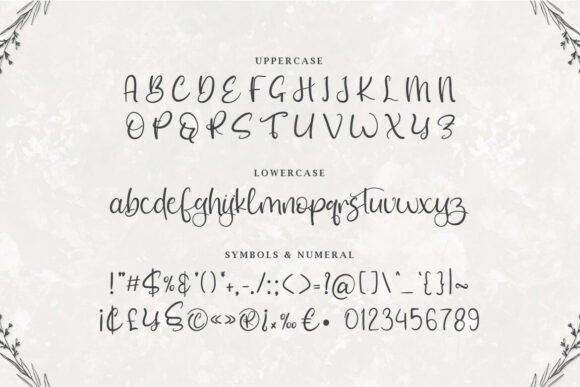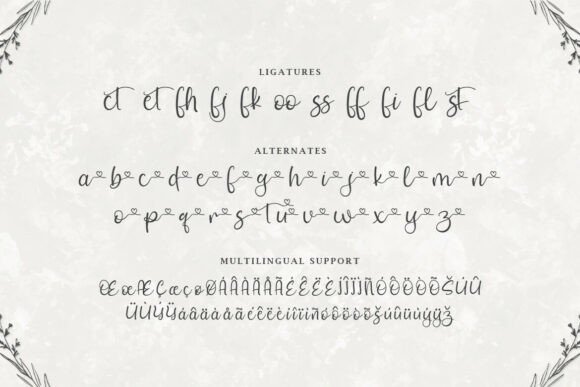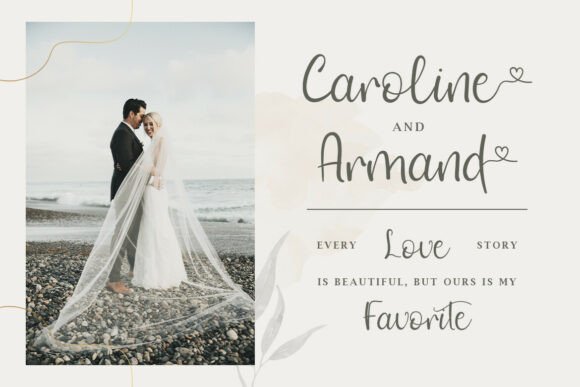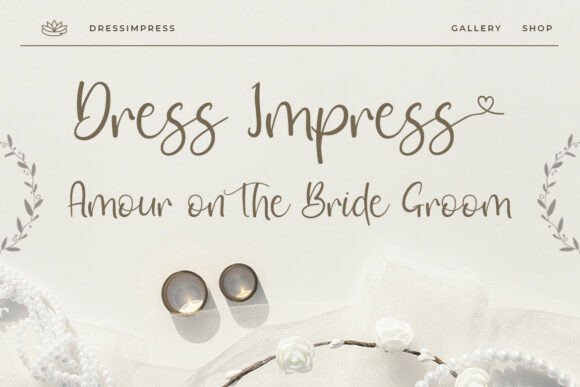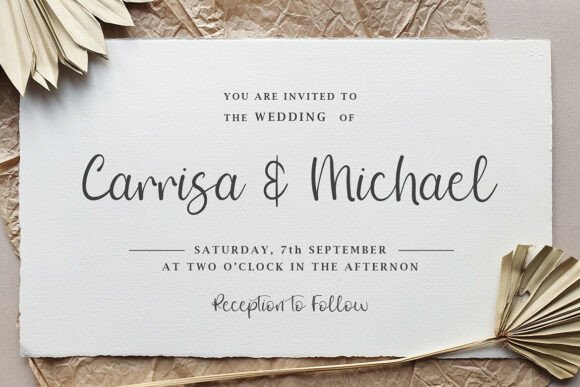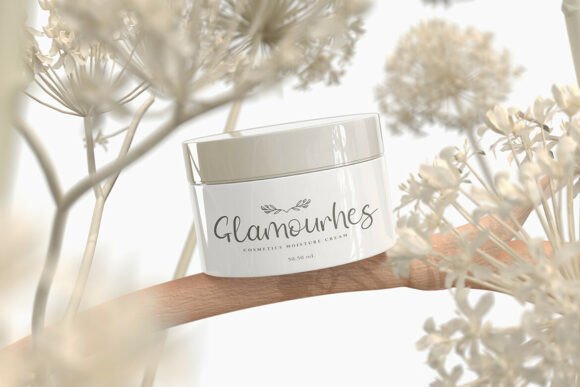
Introduction to Romantisna Font
Romantisna is a handwritten script font featuring smooth flowing strokes and natural letter connections.
The rounded shapes and subtle decorative swashes create a soft and personal character suitable for expressive typography This typeface is designed for display use and works well for wedding invitations, save-the-date cards, greeting cards, branding materials, beauty packaging, social media graphics, and quote layouts.